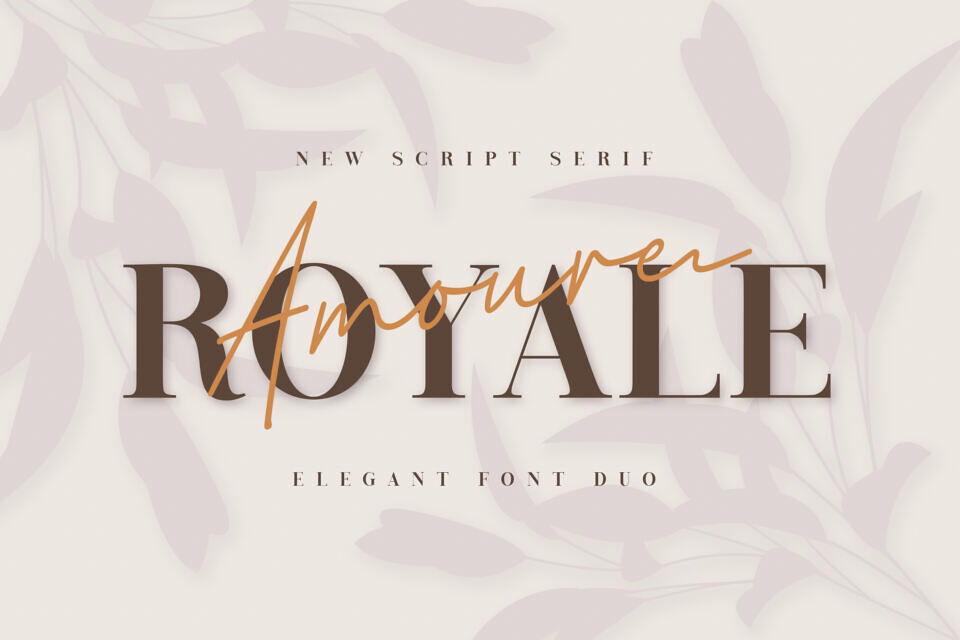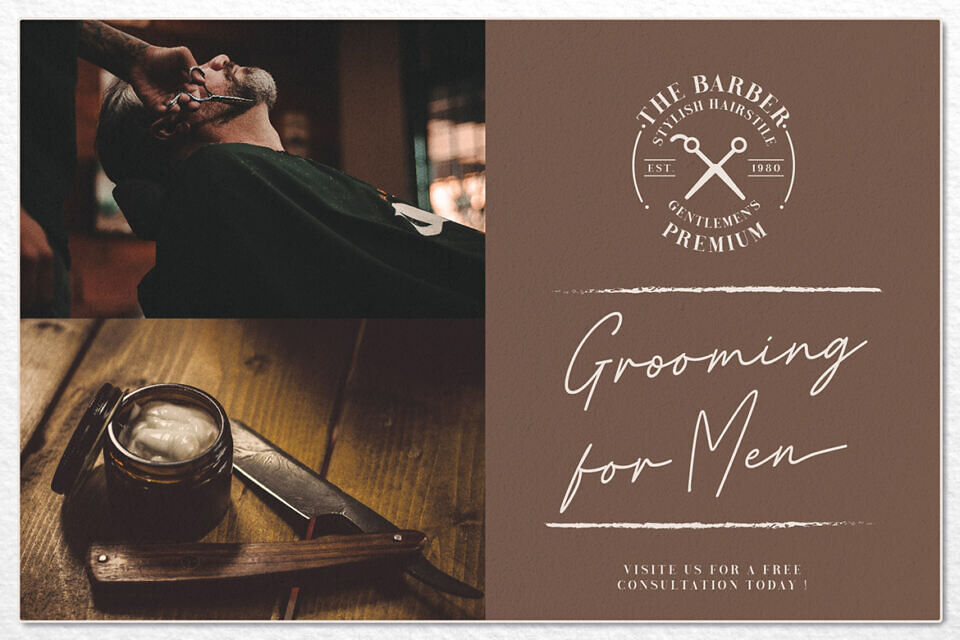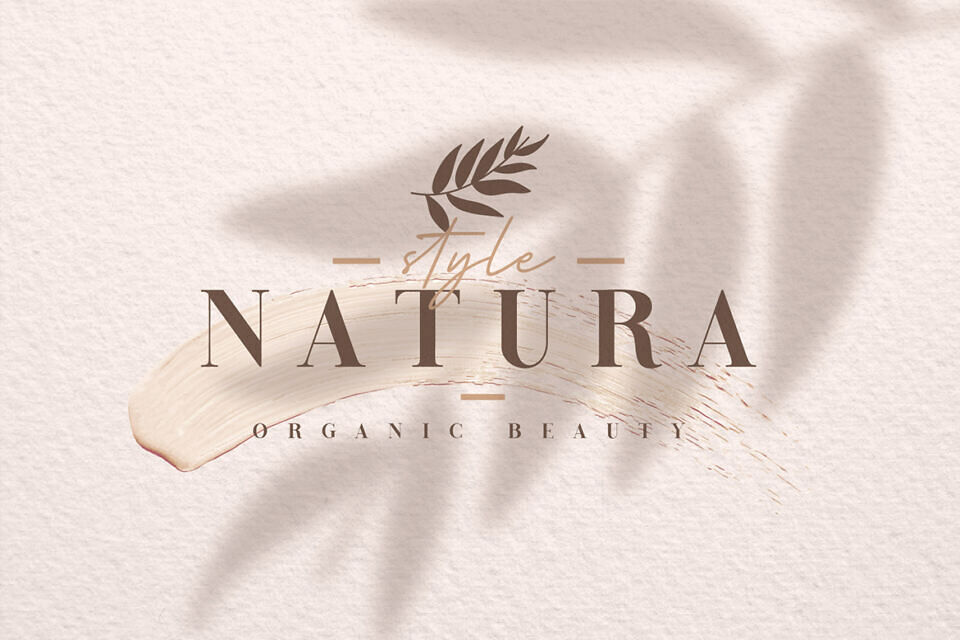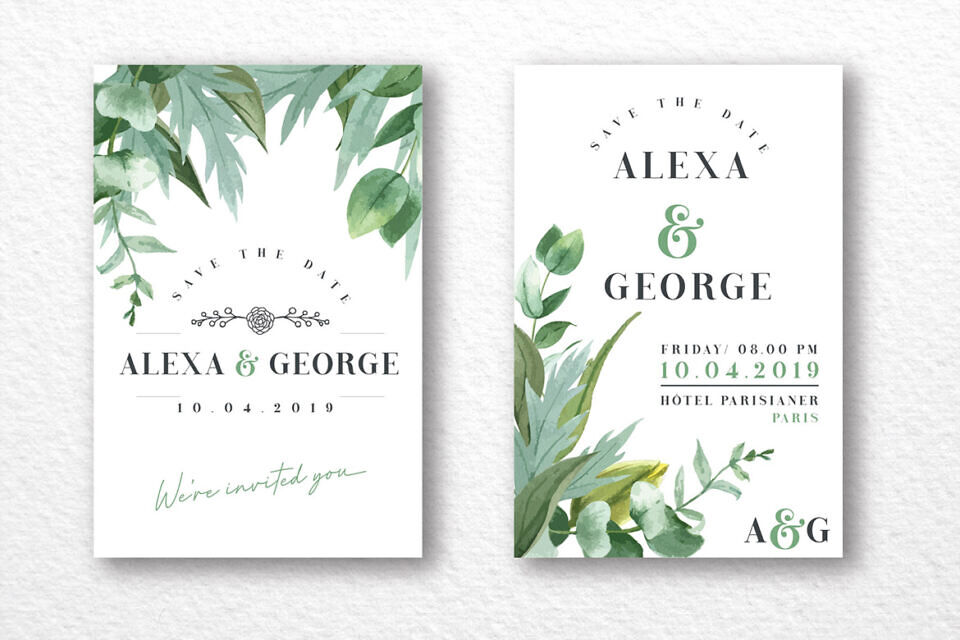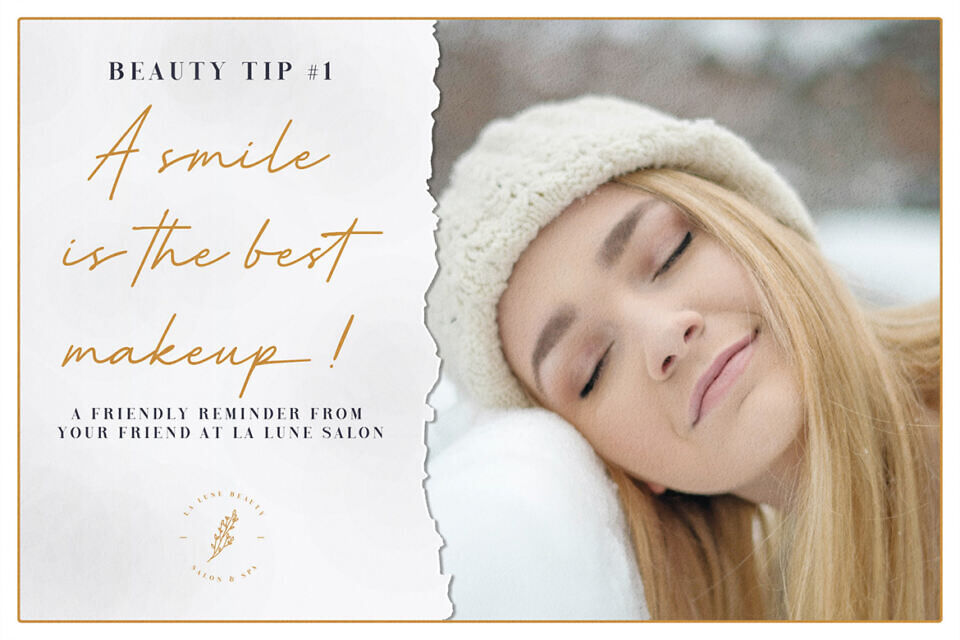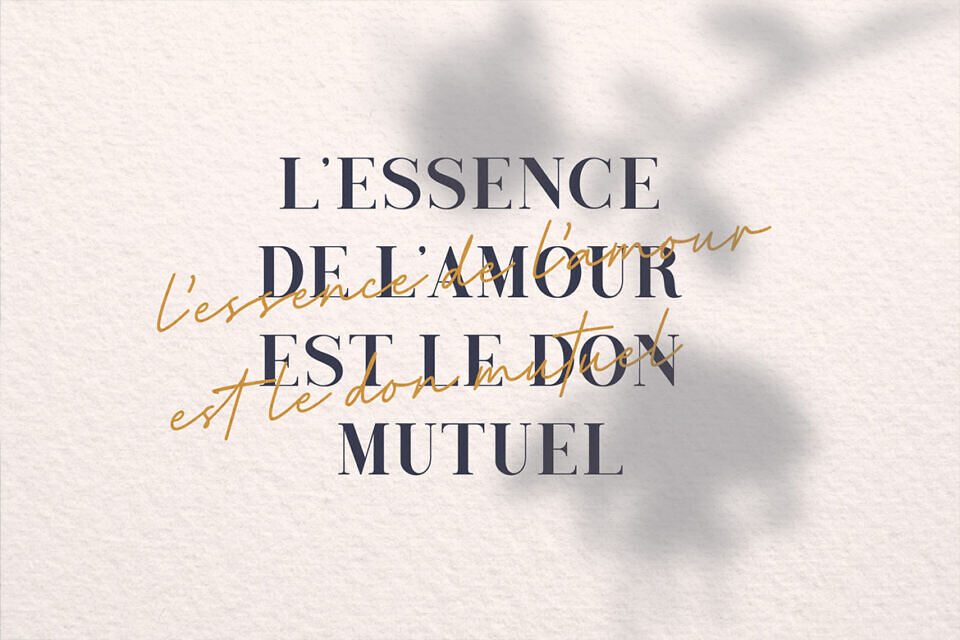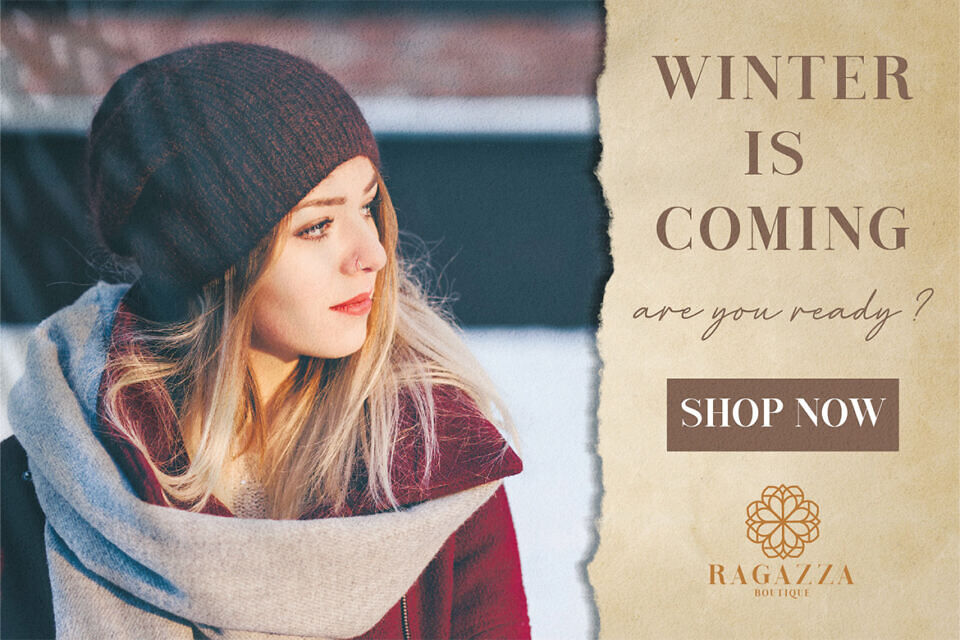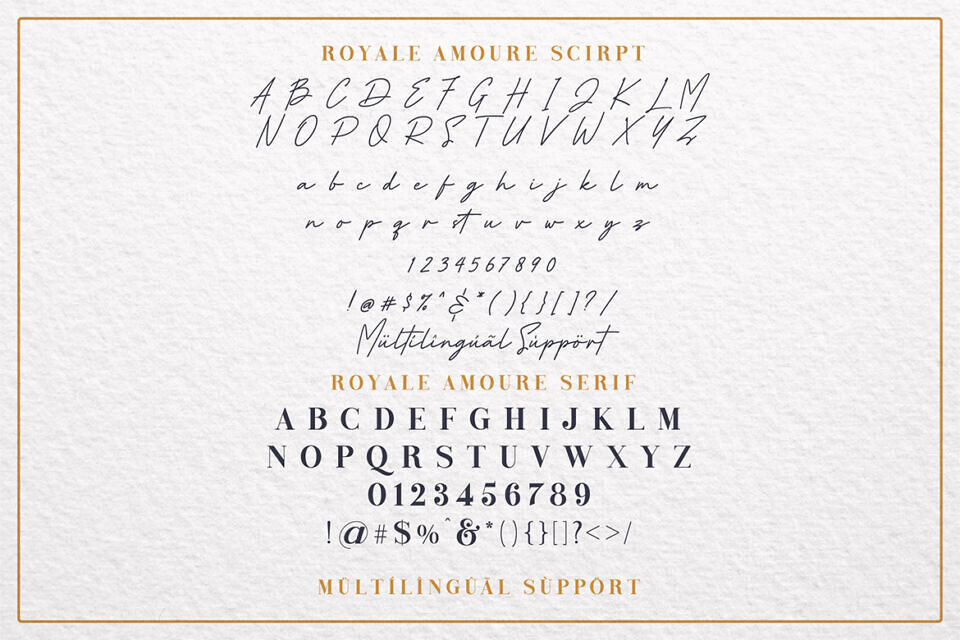
Royale Amoure Duo Font
Introducing Royale Amoure Font Duo, an elegant, classy, contemporary pair of script and serif fonts. With a stylish serif font and a free-flowing, expressive script companion.
Royale Amoure offers beautiful typographic harmony for a diversity of design projects, including logos & branding, wedding designs, social media posts, advertisements, signature, watermark & product designs.